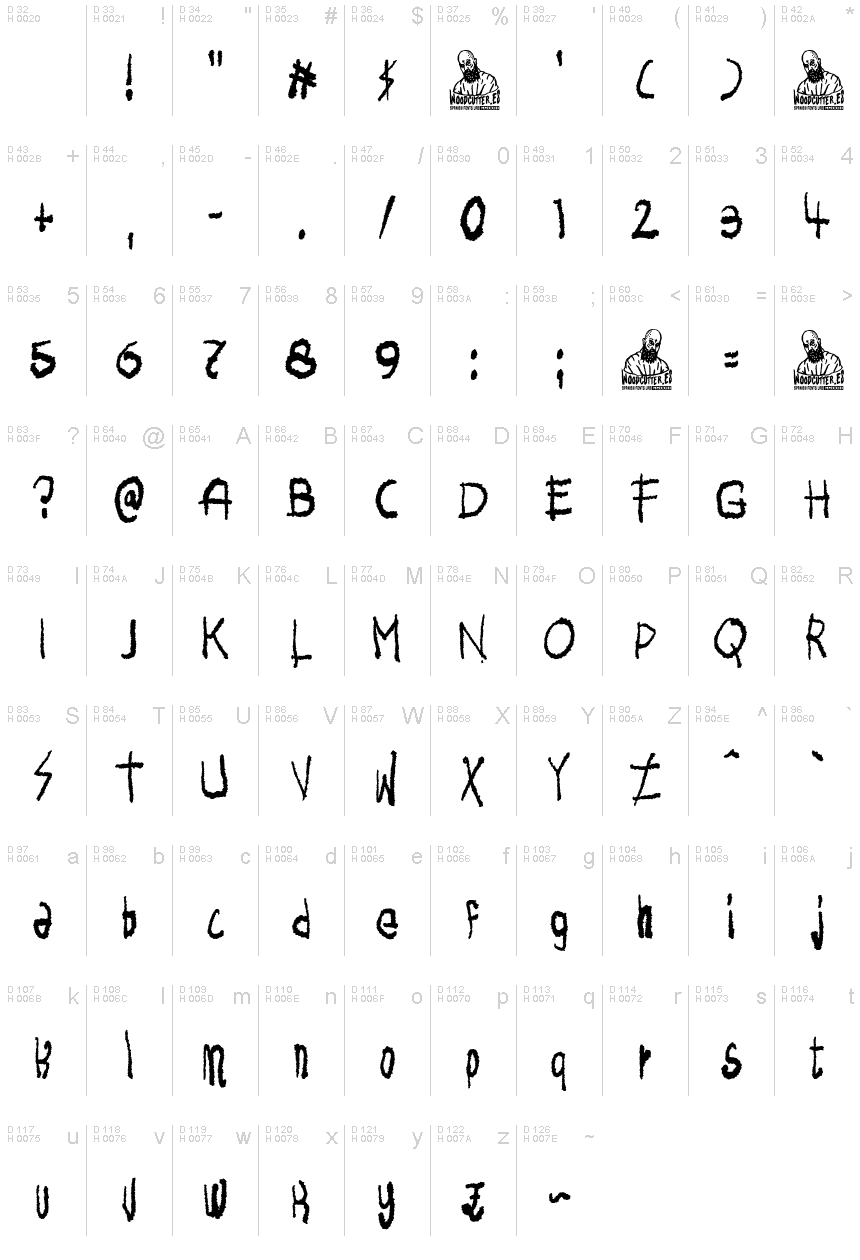
The Lithium Shop
The Lithium Shop, designed by Woodcutter, is a striking display font with a chilling twist.
Its semi-light weight and condensed width make it perfect for creating spine-tingling titles and headlines. This hair-raising font is suitable for a wide range of projects, including horror movie posters, Halloween party invitations, haunted house flyers, and eerie book covers.
Embrace the darkness with The Lithium Shop and leave your audience trembling in fear.